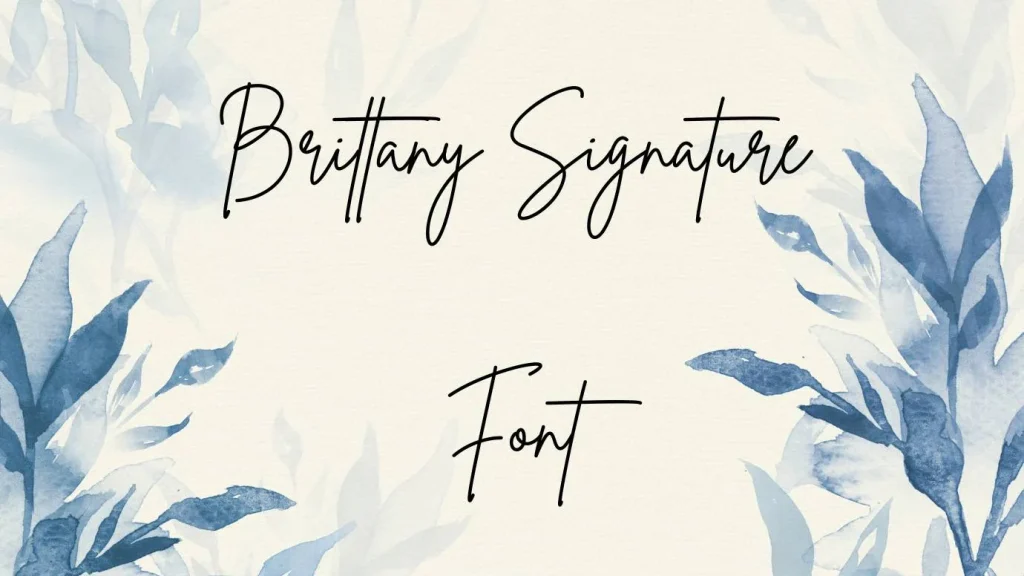
Display designs and thin corners can be created with this stunning piece. The designs are very stylish of this font. It comes in a unique weight, making it
The script style is named Brittany Signature Font designed by Creatype Studio. This typeface has special letters with an elegant look that are very useful for designers. Because of the strong and displayed characters, it is often used for titles and headlines.
Display designs and thin corners can be created with this stunning piece. The designs are very stylish of this font. It comes in a unique weight, making it suitable for a variety of designs.
Designers can create text graphics and name designs using its generator tool. Also, its unique text style makes it a good choice for script typefaces. The typeface is a great choice if you're searching for a unique design that will bring some humor or delight to your task.
Using the Brittany Signature Font
It can be used in digital offices, marketing offices, and for routine tasks. Brittany Signature Font is also suitable for brochures, posters, video game designs, logo designs, and letters.
It is suitable for labeling, emojis, symbols, writing materials, industry cards, signage, advertising material, flyers, and invitation cards. Posters and banners can be designed beautifully, and due to their advanced and brilliant features, they can be used for a variety of purposes.
This software allows you to create graphic text, logos for websites, template designs, and much more. Using this typeface makes it easy to create readable text, notes, articles, and assignments.
Brittany Signature typeface is designed by Creatype Studio it is script text style.
This style allows you to create graphic text, logos for websites, template designs, and much more.
Yes, by using the Brittany Signature Font you can make your website design more beautiful. Because of the strong and scripted characters, it is often used for titles and headlines.